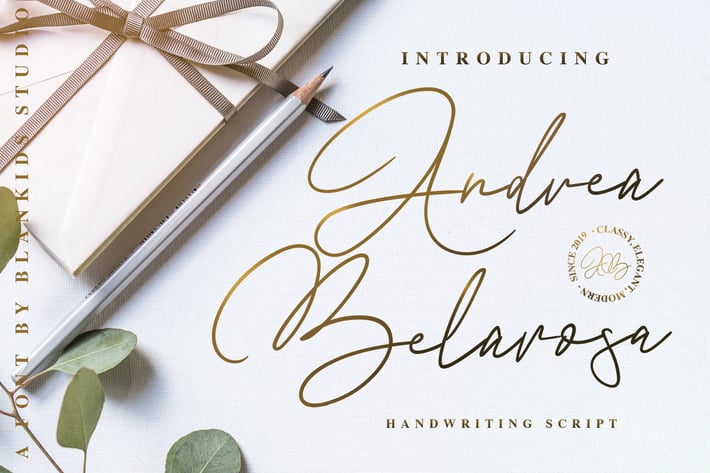
Andrea Belarosa Font
Andrea Belarosa Handwriting Script Font
Introducing of our new product the name is Andre Belarosa handwriting script. inspired by signature and stylish handwriting, Andre Belarosa is good for logotype, wedding invitation design, badge, headline, signature, packaging and any more.